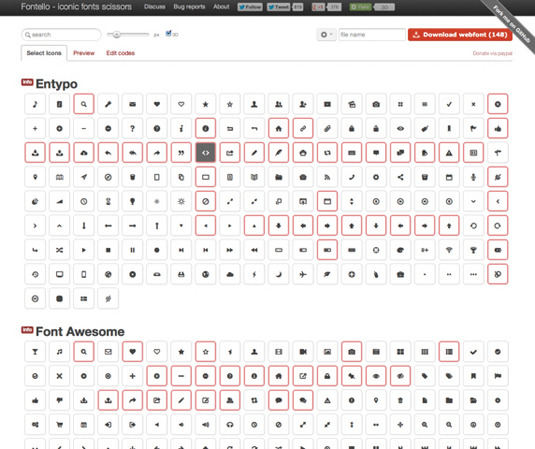
Free customisable icon font sets from Fontello
Customisable icon font sets covering just about any conceivable semiotic scenario. Why wouldn’t you want that?
Why is it so hard to find a set of icons that covers all the bases with a consistent look and feel? Well, wonder no more.
Drawing from number of sources - including Entypo and Font Awesome - Fontello not only has all the icons you need, but you can pick and choose the glyphs you need and compile them into your own minimalist set.